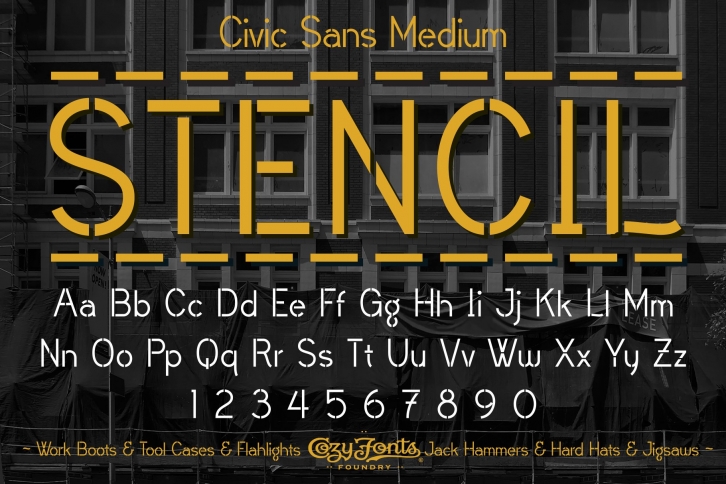
Member #5 from the Civic Sans Font Family Stencil is just that. This medium weighted stencil font will work great in an engraved capacity. Uses are many for this channeled version of Medium. Whether it be for construction sites, caution signs, or laser cut for spray painting cut-out signage and identification.